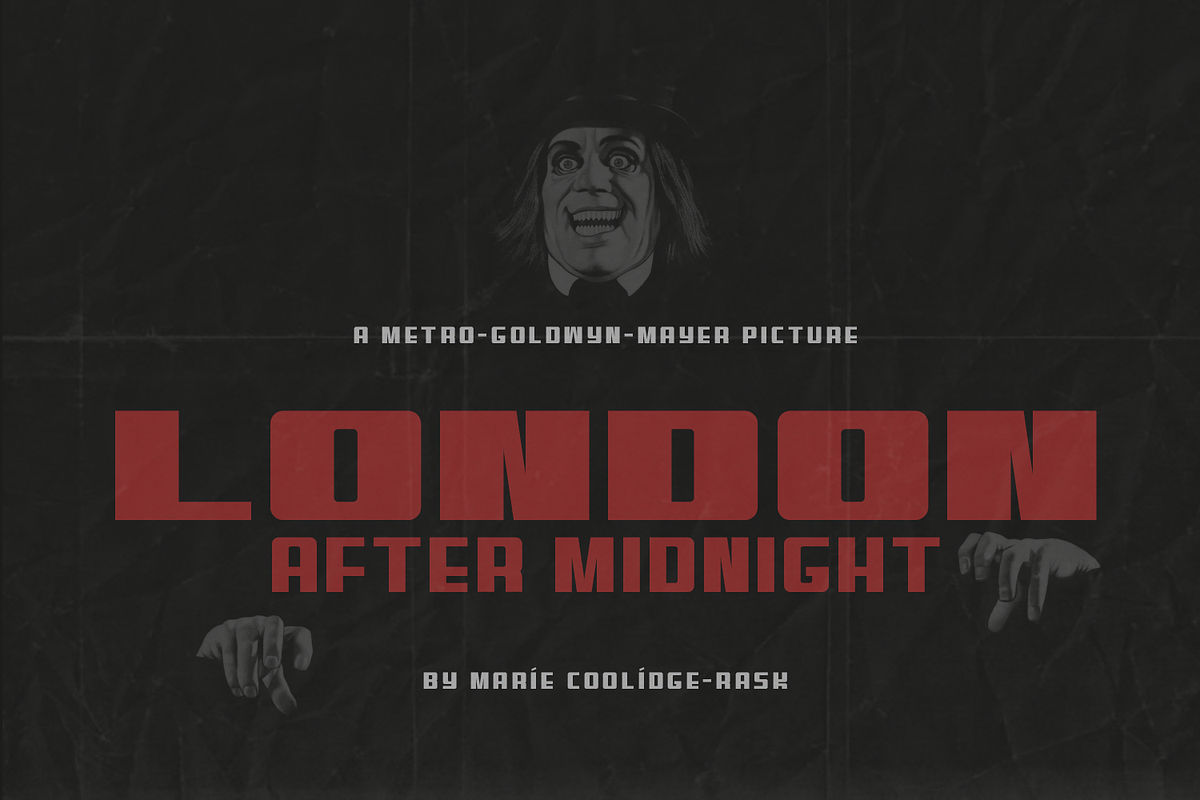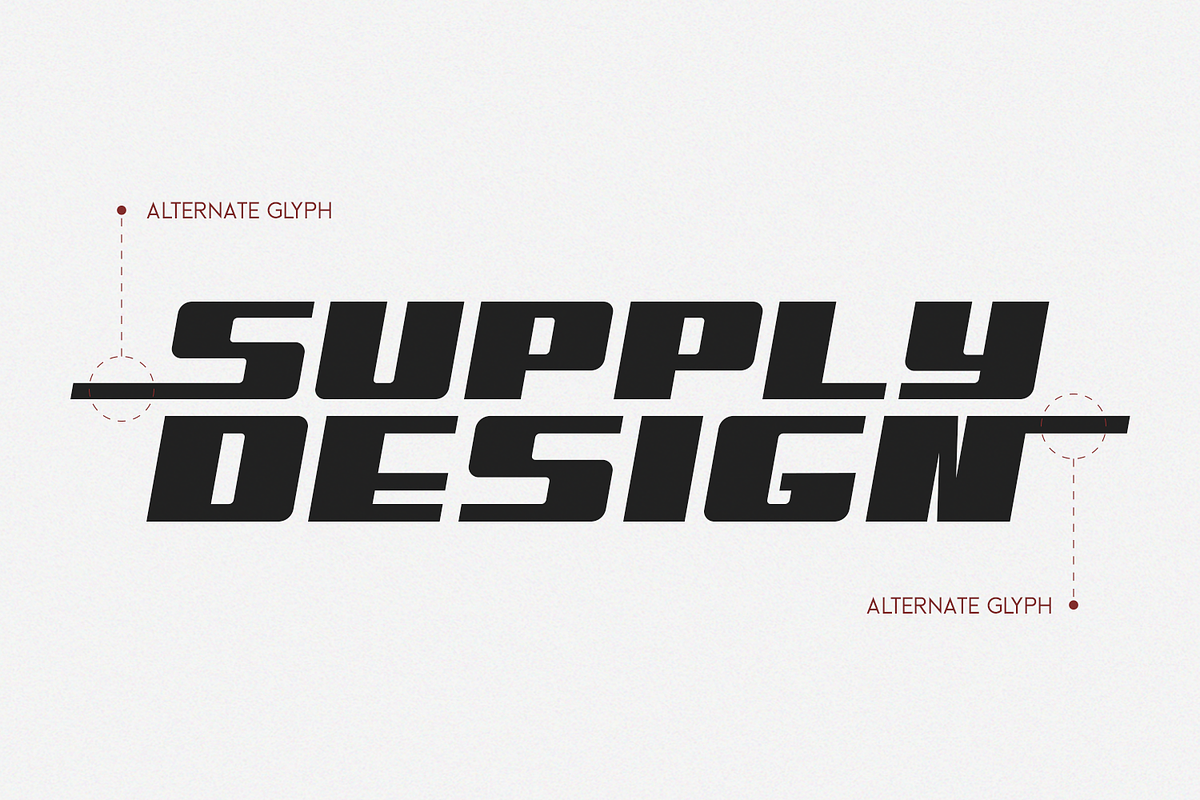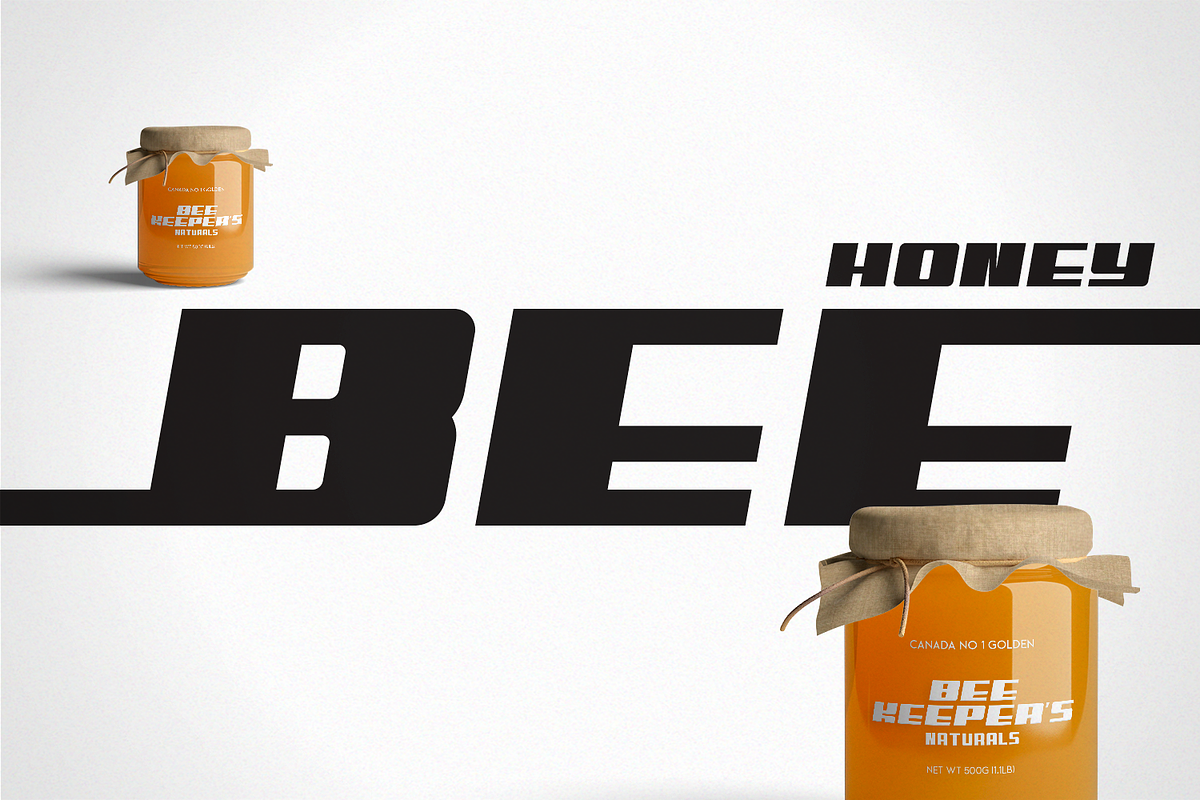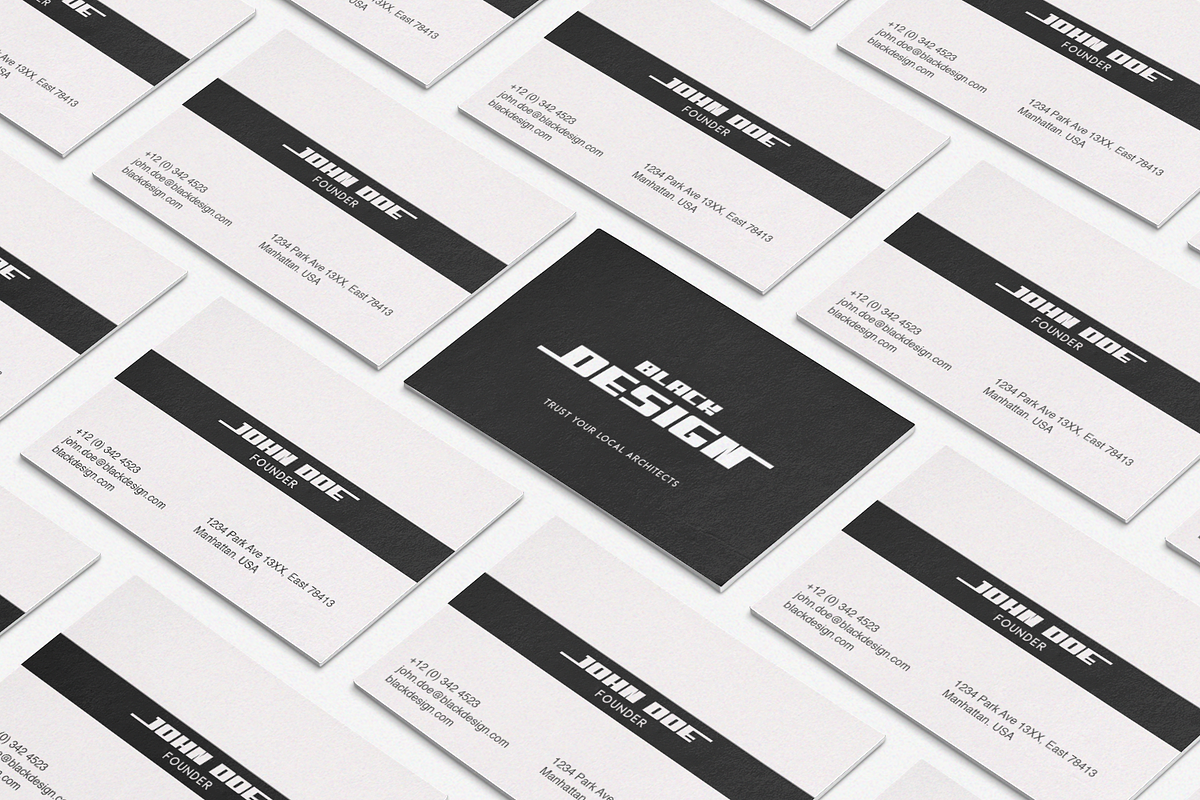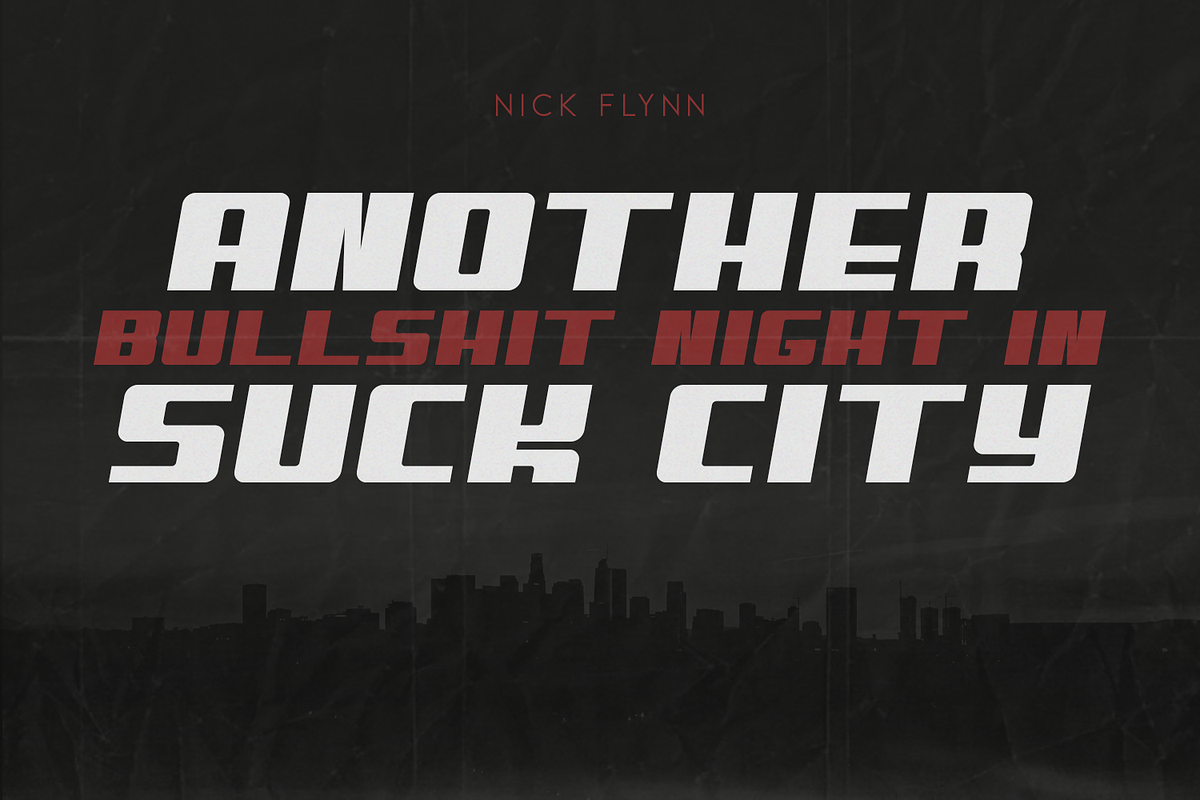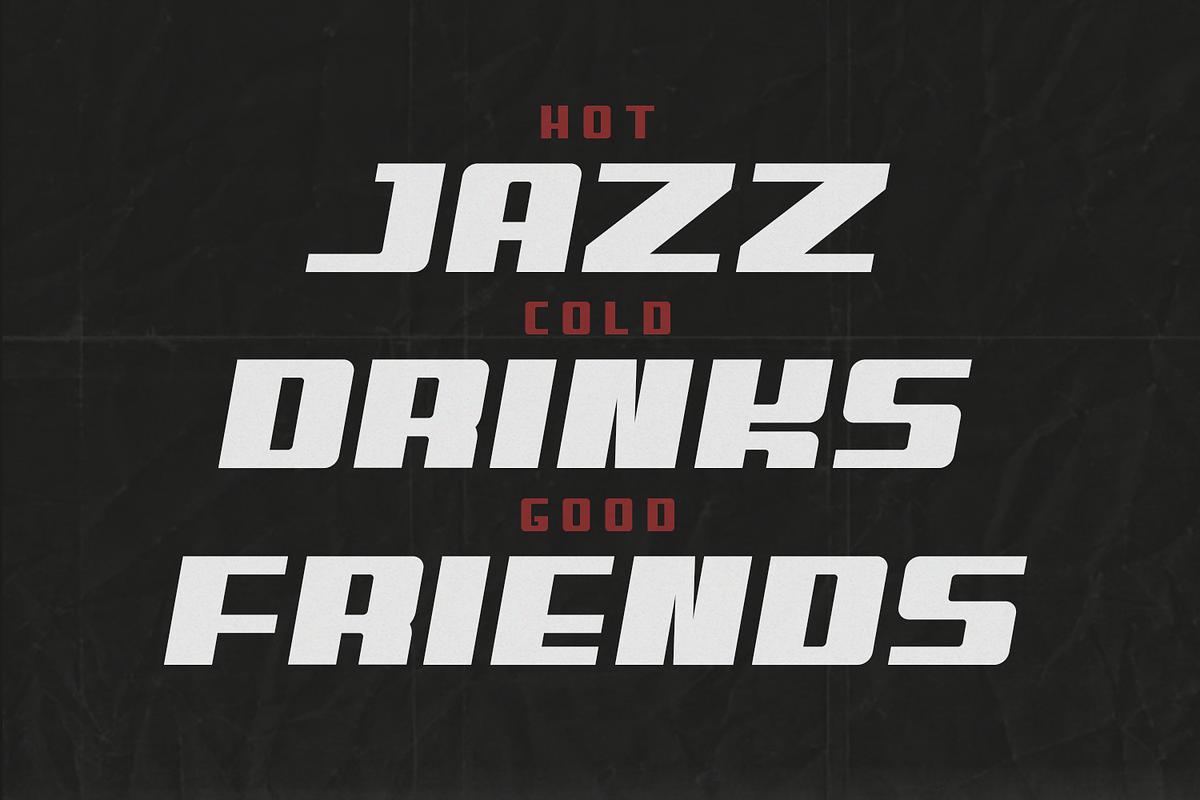
Benn - Bold and Strong Font Family
Benn is a bold and strong font family.Inspired by a car shape, it's sturdy uncompromising style is felt through the controlled letterforms and fluid touches. A balance of hard lines and smooth curves.
Benn Light - Regular & Italic
Benn - Regular & Italic
Benn Bold - Regular & Italic
Benn Heavy - Regular & Italic
USE Benn works great in any branding, poster, logos, magazines, films. The different weights give you full range to explore a whole host of applications, while the alternate glyphs give a fluid and modern feel to any projects.